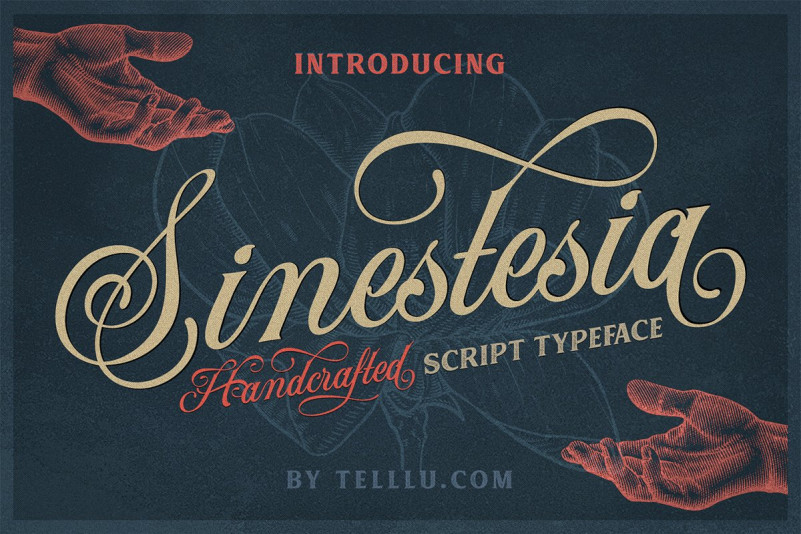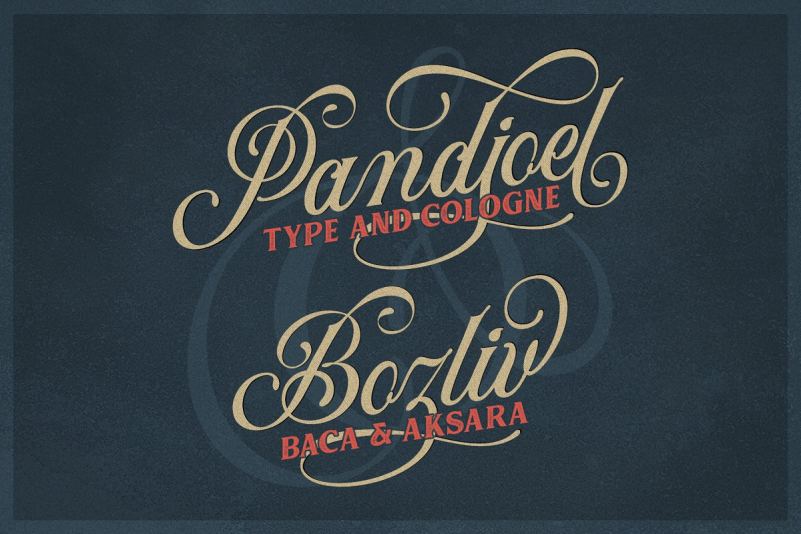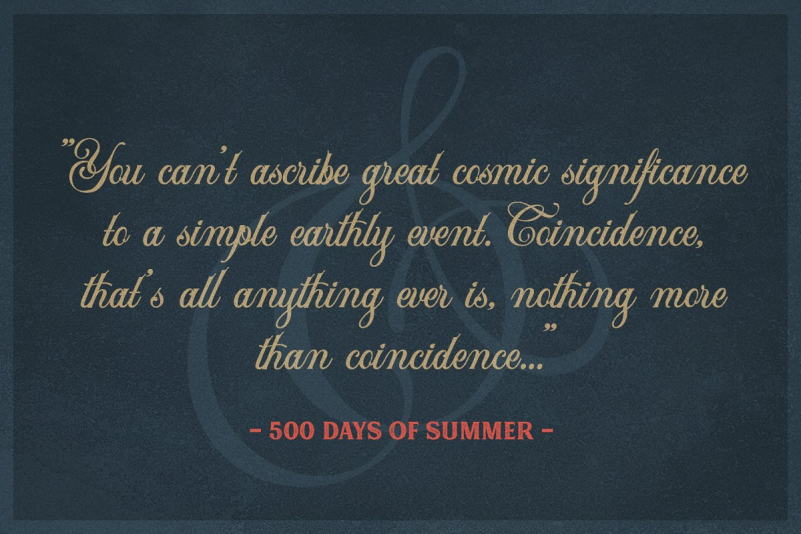
Sinestesia Font
Sinestesia is a handcrafted script typeface, originally made by hand by our talented lettering artist friend, Haris MM. Truly inspired by brush lettering from old sign paintings. Combined with clean strokes and dynamic movement to brings more personality on your message in very classy way. Very suitable to use on many of your project as Logotype, Letterhead, Poster, Apparel Design, Label, Invitation, and more.